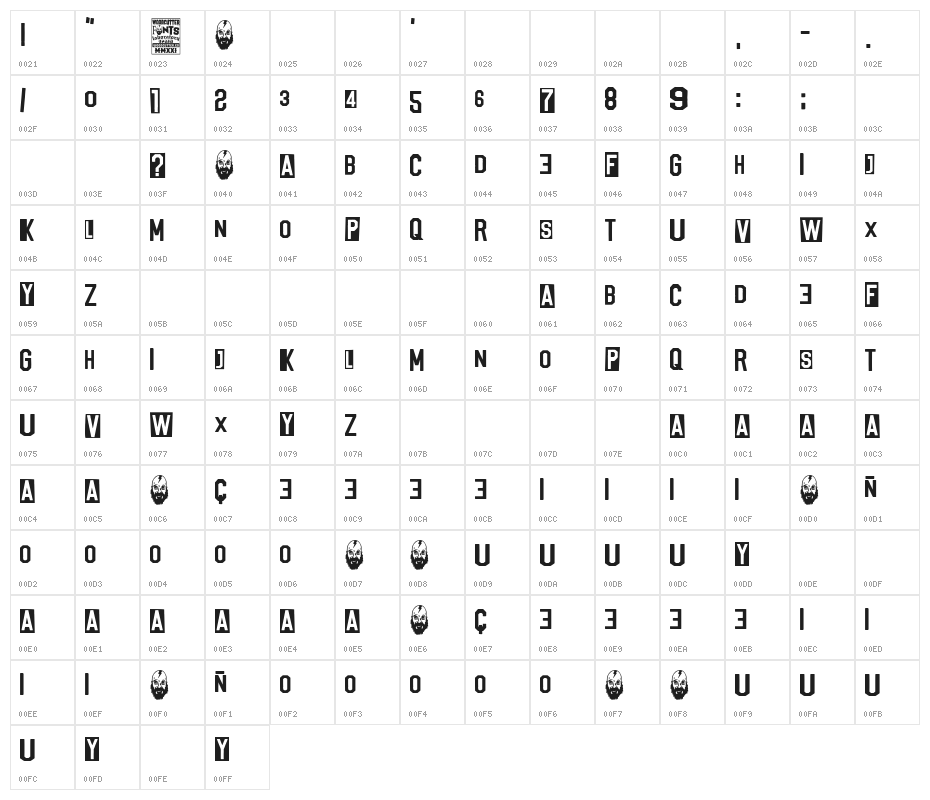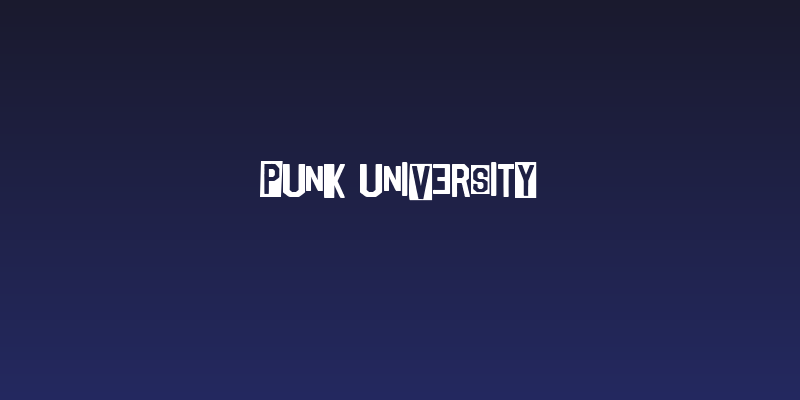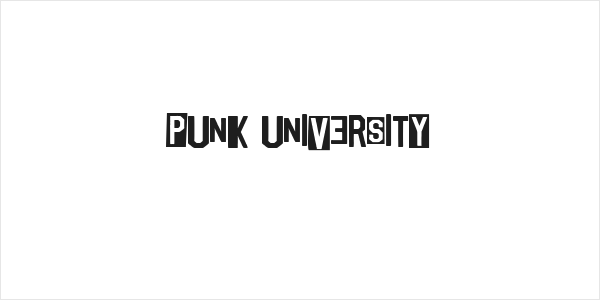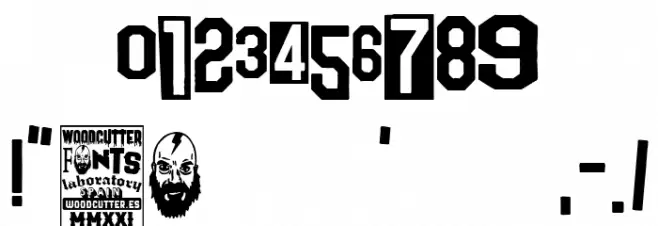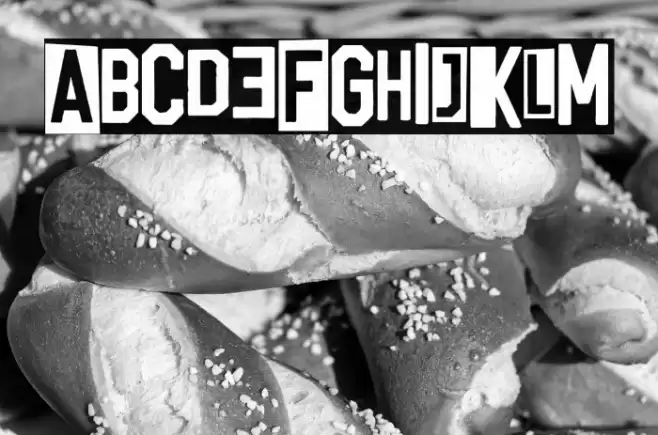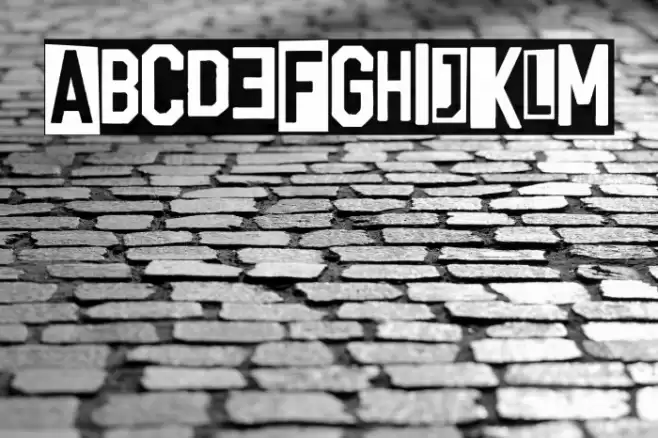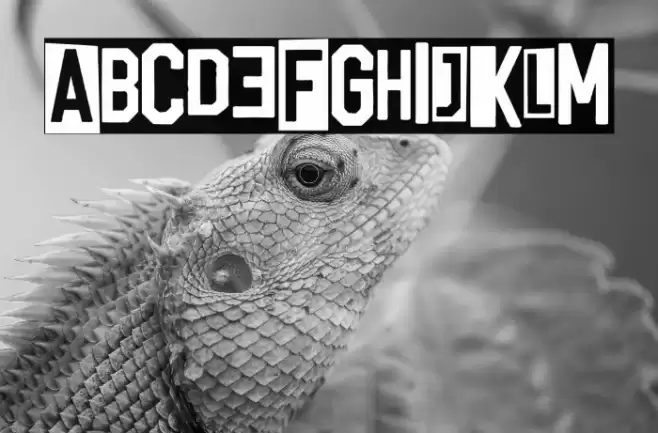
Punk University Font
Punk University Description
This font features a bold and edgy design, characterized by its blocky and irregular letterforms. Each character is uniquely styled with a mix of sharp angles and uneven edges, giving it a rebellious and unconventional look. The uppercase letters are particularly striking, with varying thicknesses and a stencil-like appearance. The numbers and special characters maintain this bold aesthetic, ensuring consistency throughout the typeface. This font's distinctive style makes it ideal for projects that require a strong visual impact.
| Overall Style | Punk, Urban, Rebellious |
| Proposed Projects | Ideal for punk-themed posters, album covers, streetwear branding, and edgy editorial designs. |